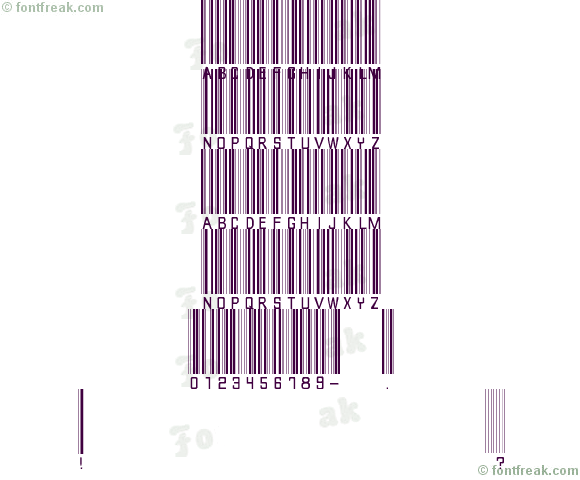
barcode font
About barcode font
The "barcode font" by Anke Arnold is a unique display font that creatively captures the essence of barcodes through its design. This font is a standout example of a decorative typeface, characterized by its vertical lines that mimic the appearance of traditional barcodes. The strokes exhibit a uniform weight, ensuring consistency throughout, while the spacing between the lines is deliberately structured, creating a clean and organized visual that is both striking and functional.
Ideal for a variety of applications, this font is particularly well-suited for product labels, shipping tags, and inventory management systems where barcode representation is essential. Additionally, it can be creatively utilized in graphic design projects such as tech-themed posters, modern branding materials, or even educational resources focused on retail and logistics. Small business owners could also leverage this font to enhance their promotional materials, making it a versatile choice for anyone looking to add a contemporary touch to their designs.
What sets this font apart is its ability to blend functionality with creativity. The "barcode font" not only serves a practical purpose but also stands as an artistic statement. By integrating this font into your designs, you can elevate your work, ensuring it stands out in crowded visual landscapes. For those seeking a barcode font font free download, this offering by Anke Arnold is an excellent choice, merging style with usability seamlessly.